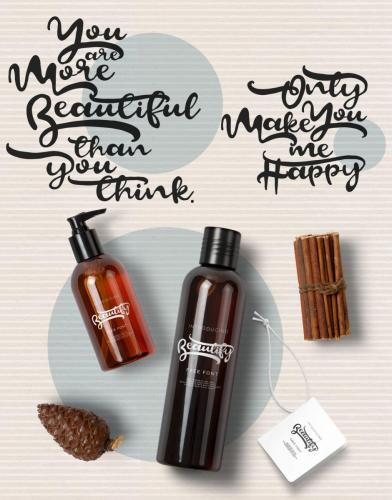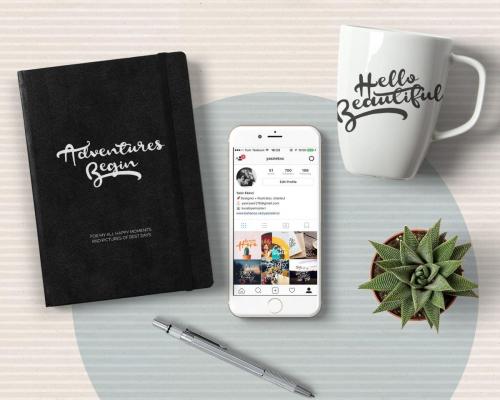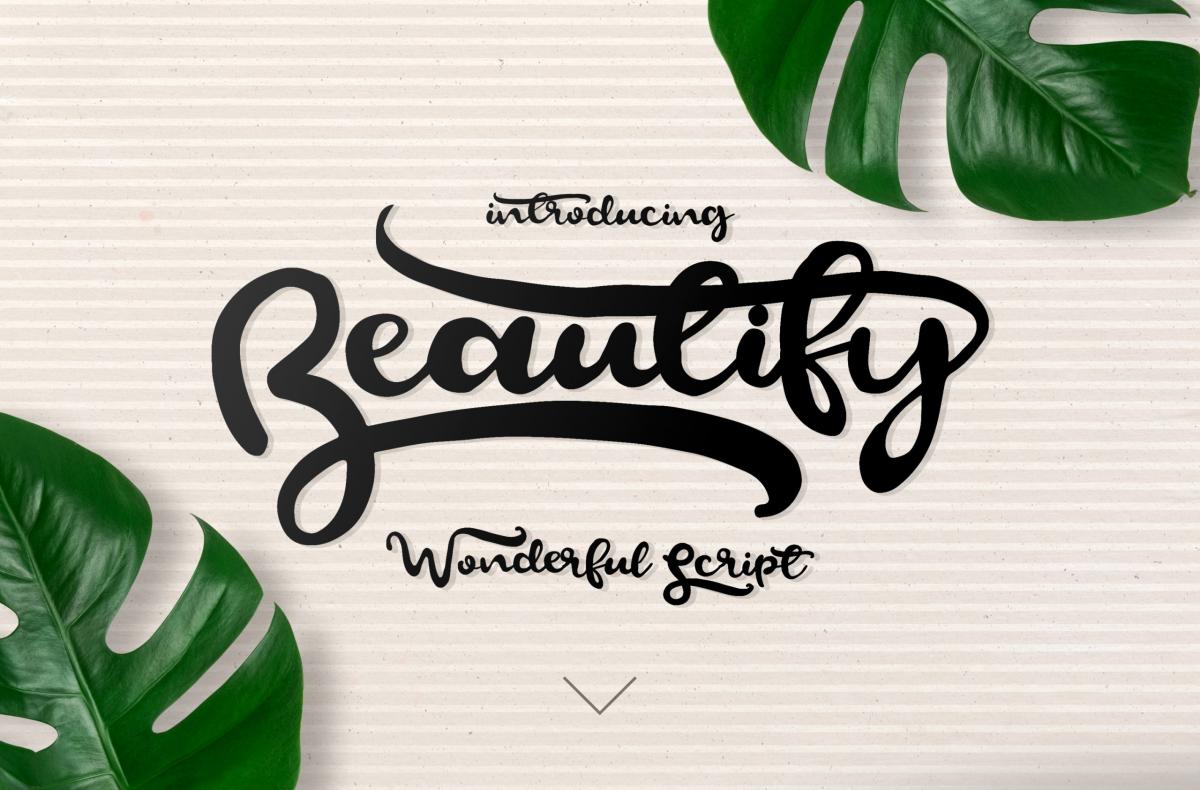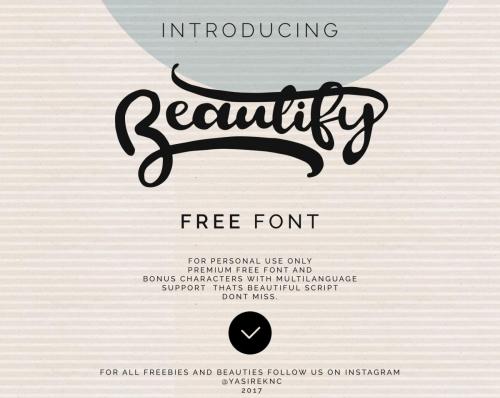
Beautify is wonderful script font. Also is free. All standart characters and extras included multilanguage support.For all goodies appreciate project and follow me.
- Designer: Yasir Ekinci